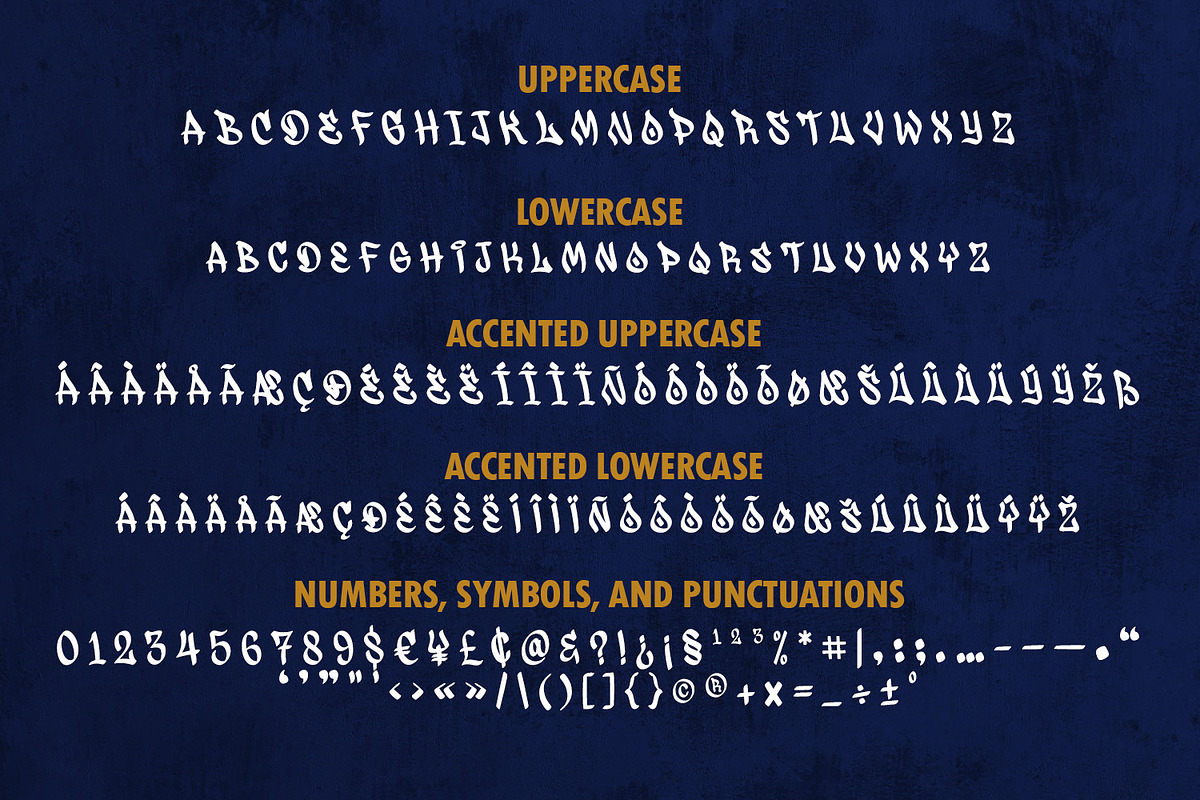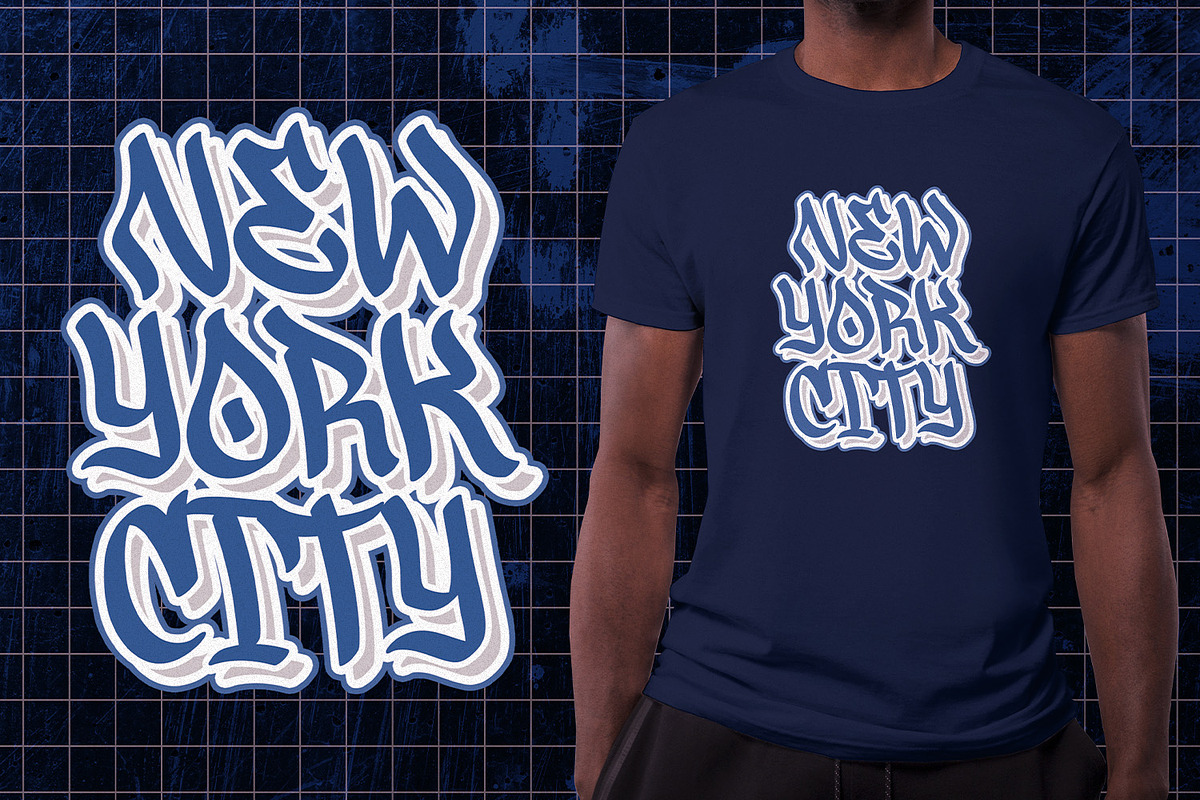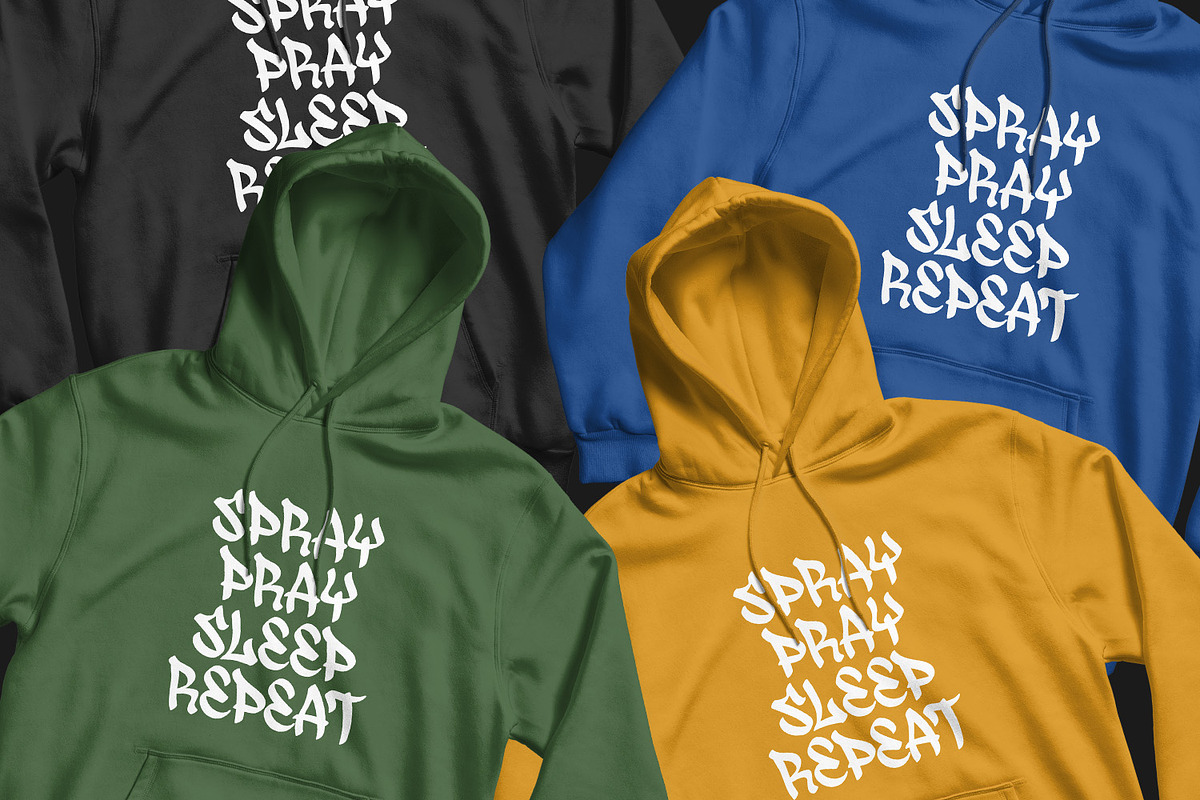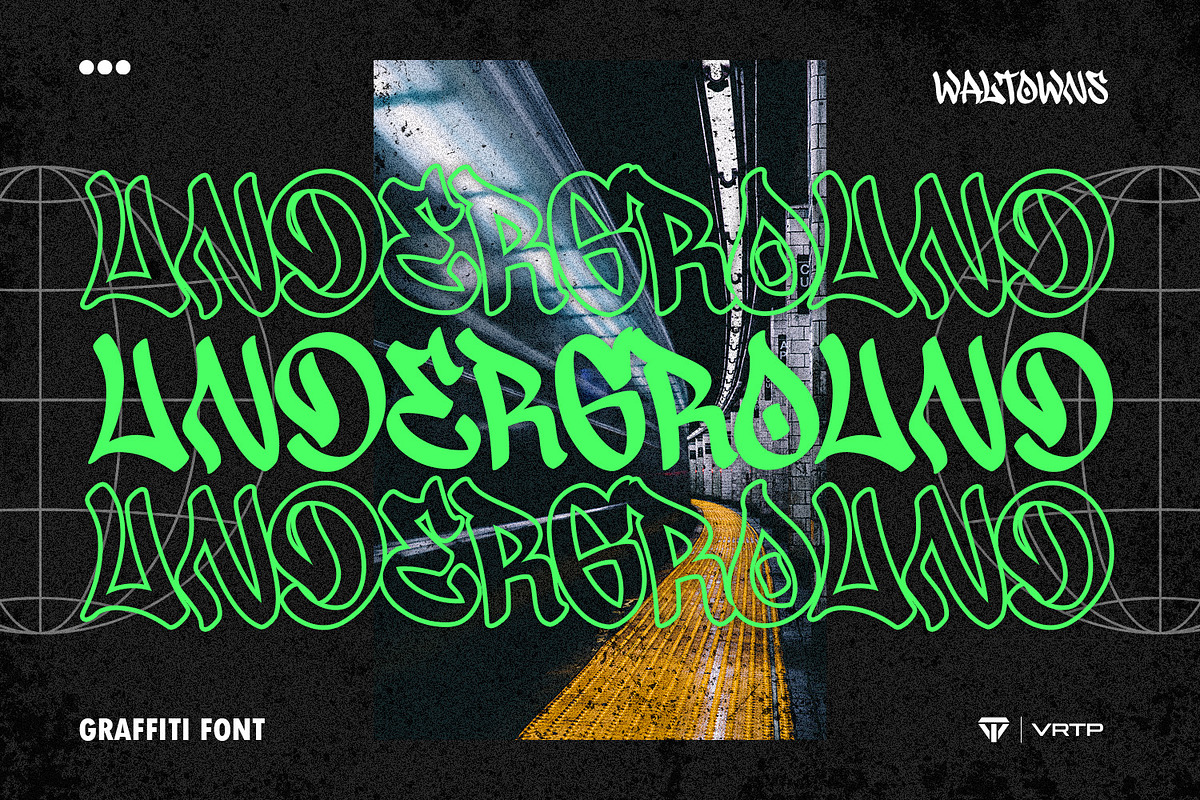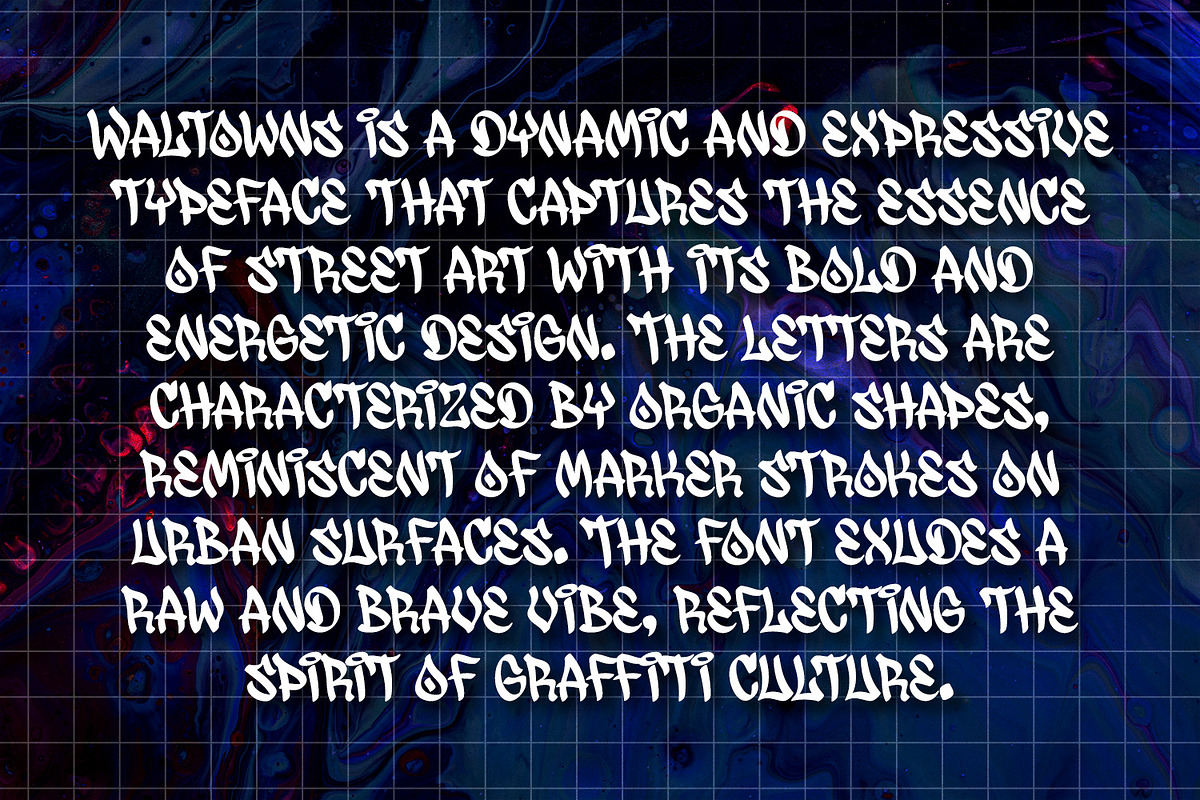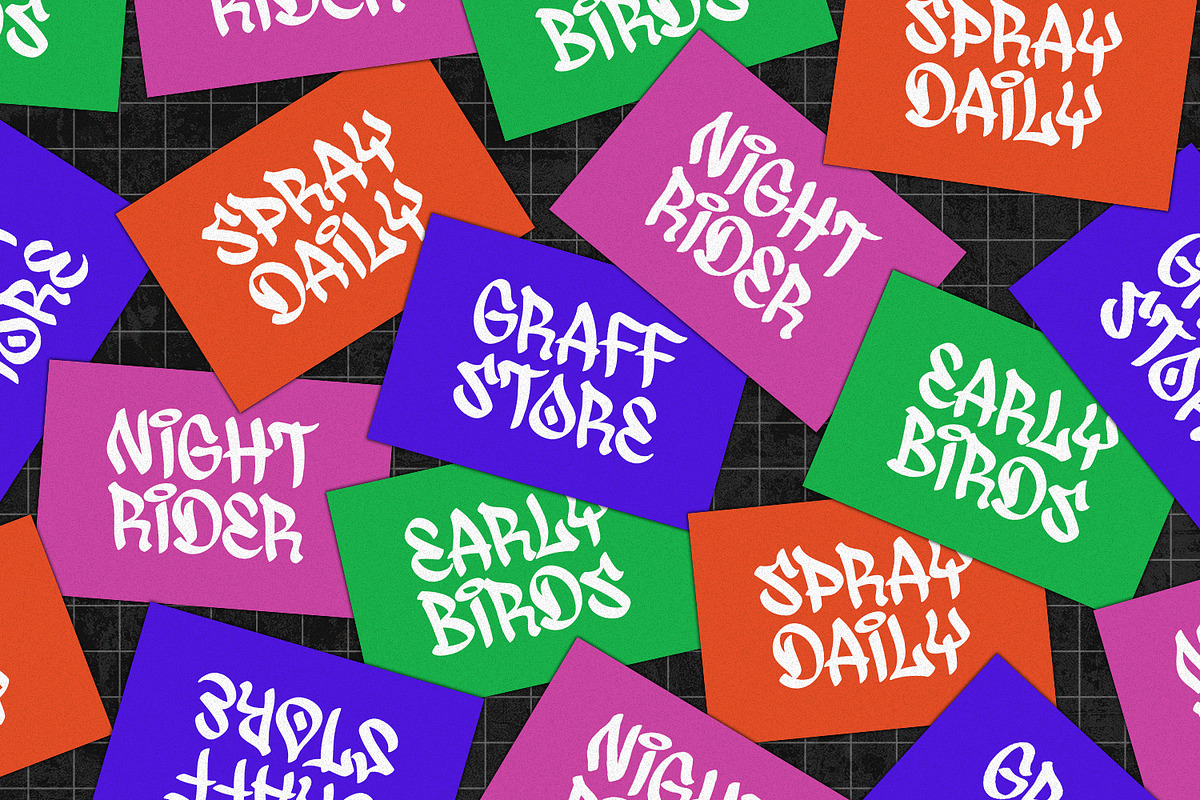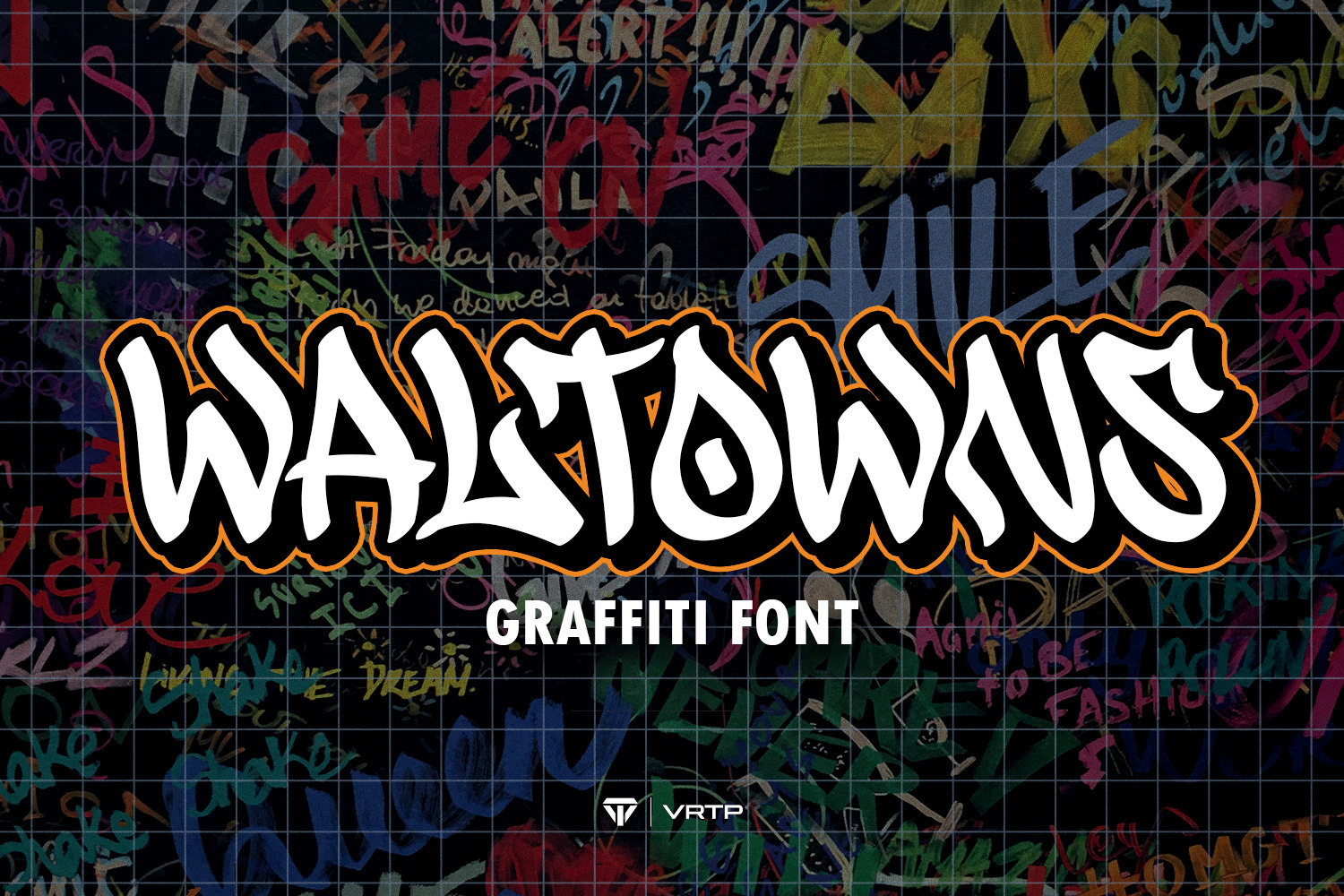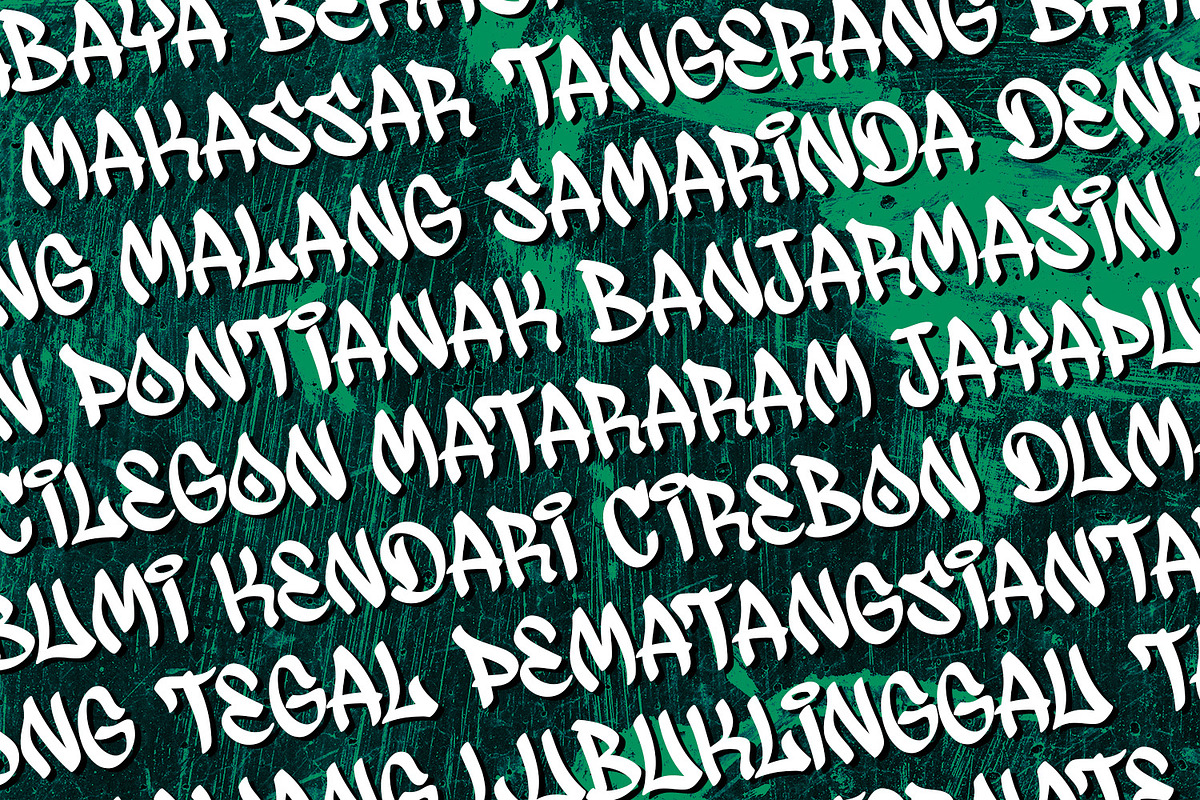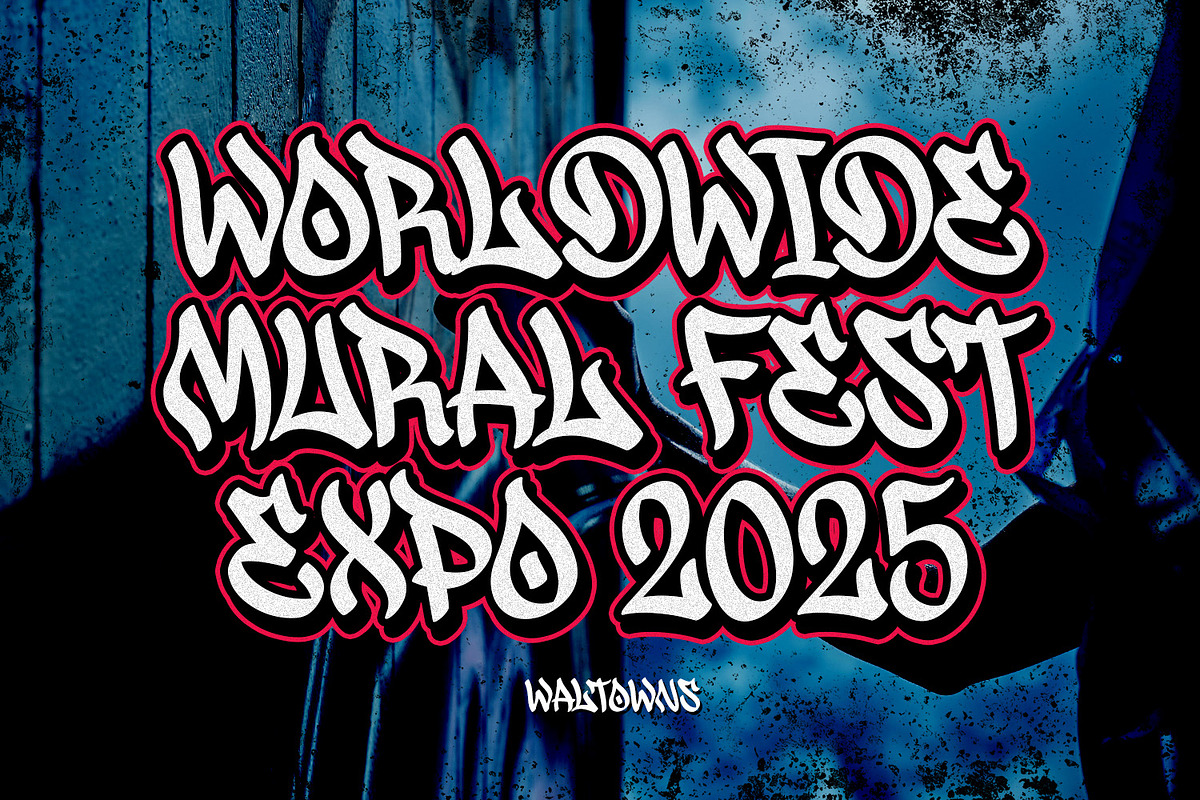
Waltowns - Graffiti Font
Waltowns is a dynamic and expressive typeface that captures the essence of street art with its bold and energetic design. The letters are characterized by organic shapes, reminiscent of marker strokes on urban surfaces. The font exudes a raw and brave vibe, reflecting the spirit of graffiti culture.
The font includes a diverse set of characters, allowing for creative and eye-catching compositions. Whether you're designing posters, album covers, or any other graphic project, Waltowns inject a sense of urban attitude and artistic edge. Its versatility makes it suitable for a wide range of applications, making your designs stand out in the crowd.
Waltowns is not just a font; it's a statement. It represents expression, the vibrancy of the streets, and the bold creativity that defines graffiti art. Use Waltowns to bring a touch of urban authenticity to your design projects and let your creativity run wild on the walls of the digital world.
FONT FEATURES
Additional Accents
68 Languages
Kerning